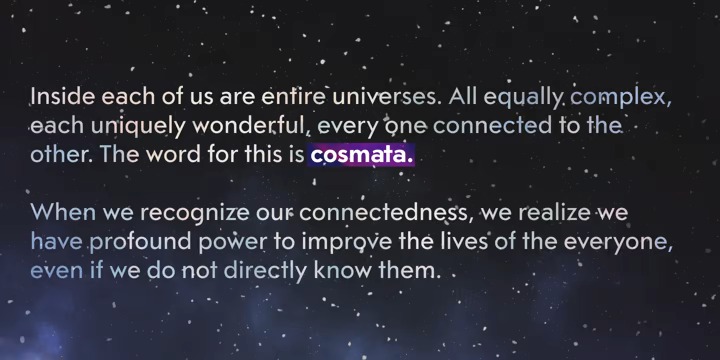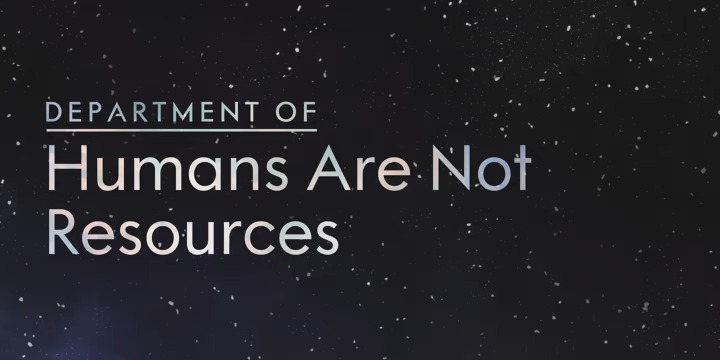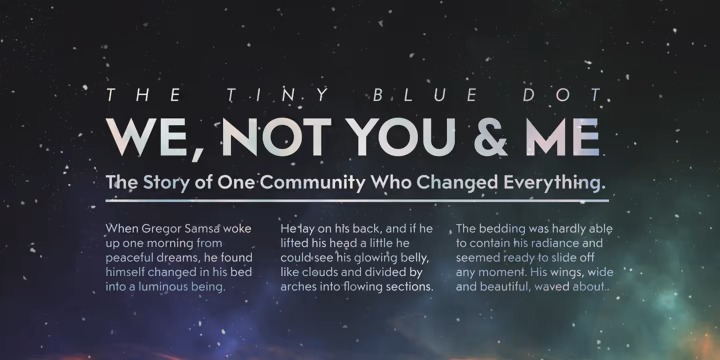
Cosmata Font
Cosmata Sans Serif Font
It is geometric sans serif family with humanistic elements. Inspired by Futura, Cosmata developed its own complex, unique life.
Cosmata family contains variable and classic versions, so you can pick which one suits better for you and your project. Classic version is additionally fine tuned to get overall character look more equalised and uniform.